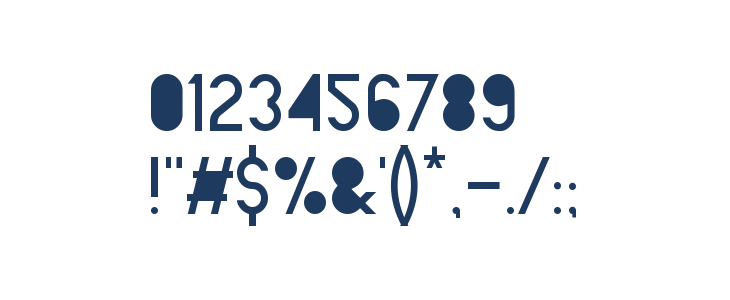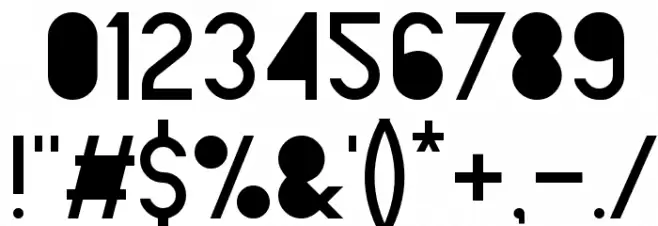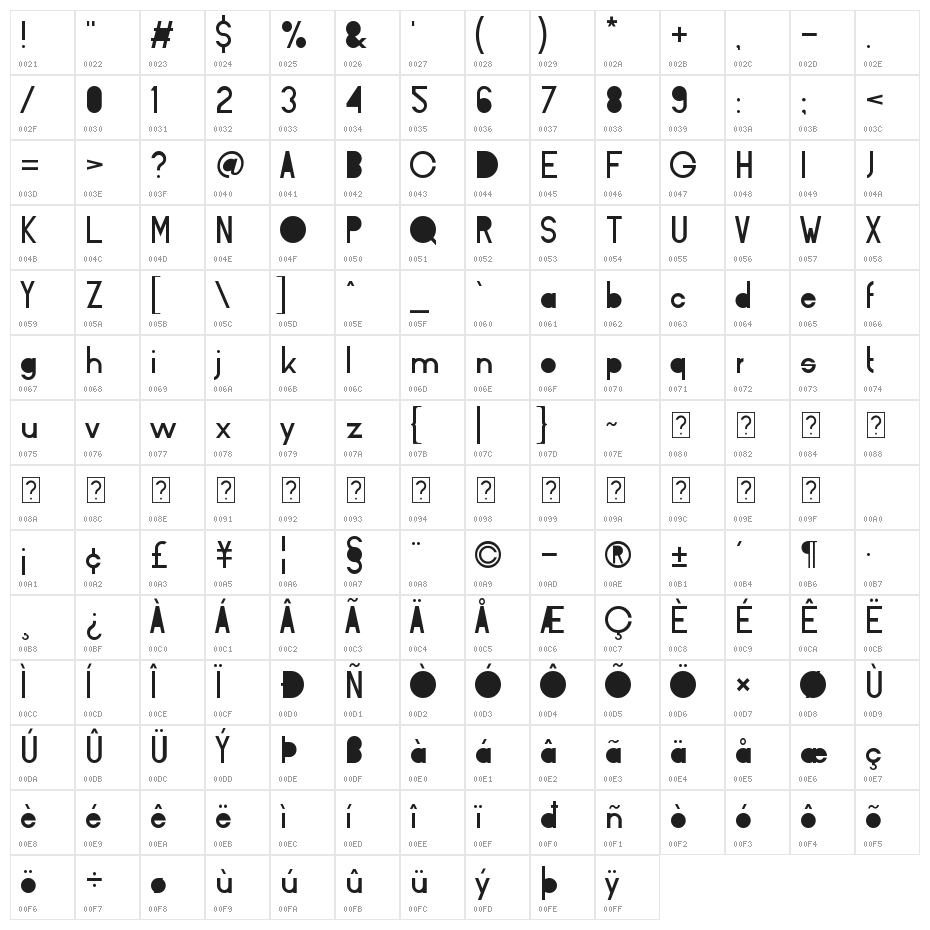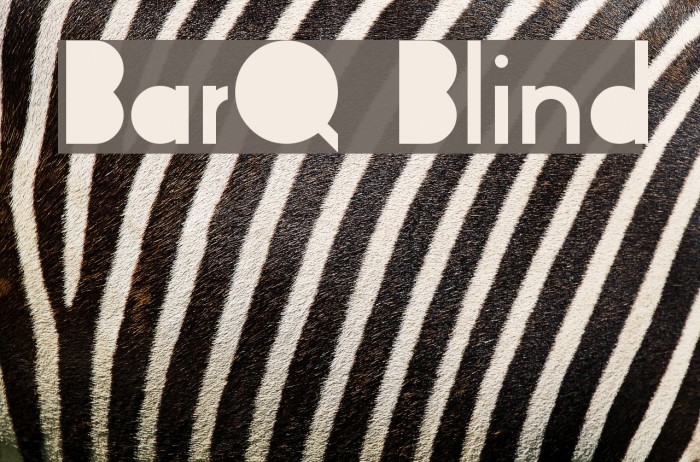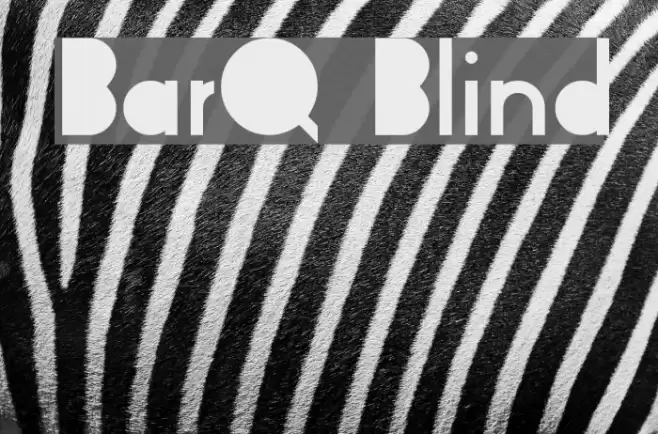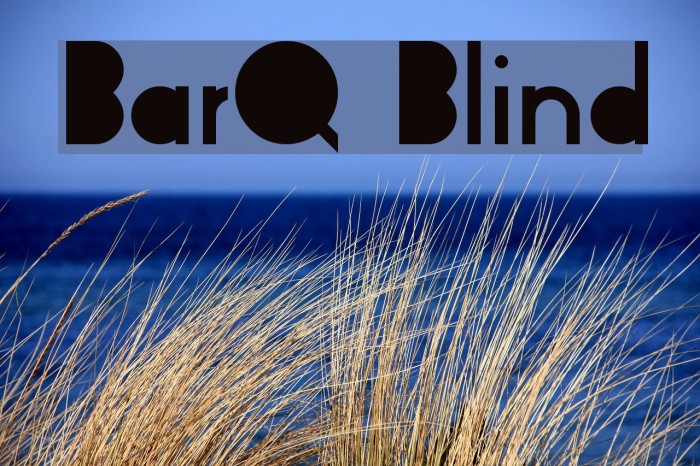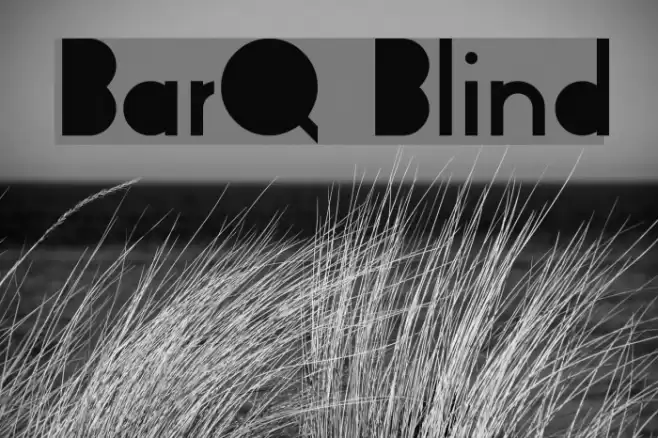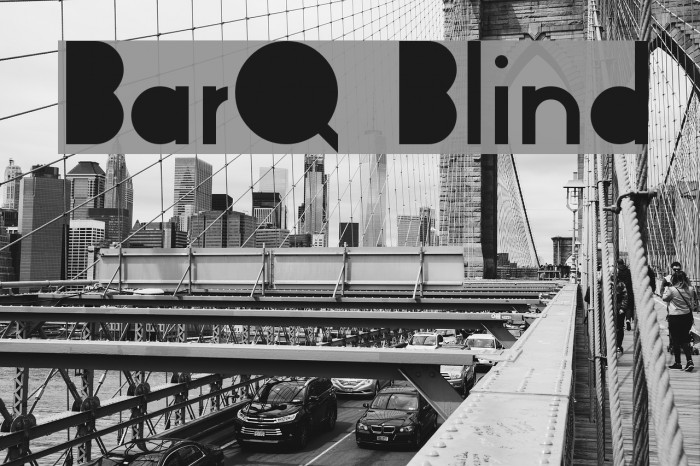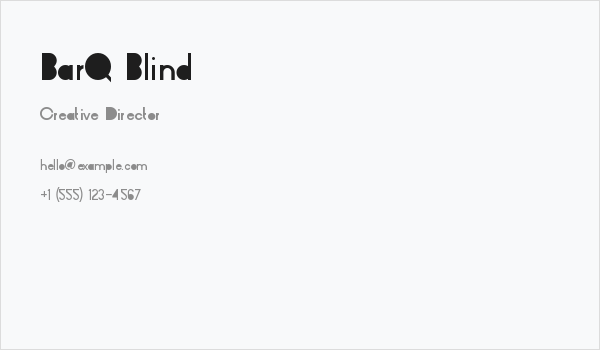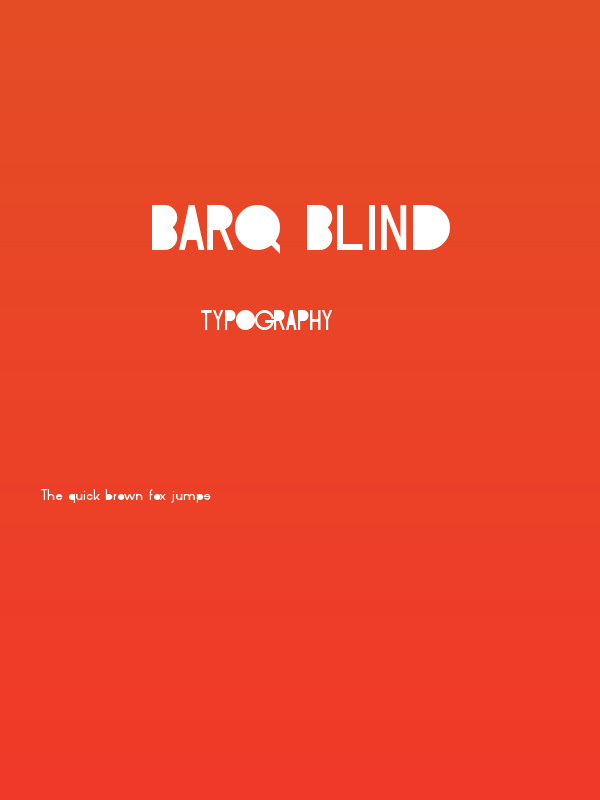
BarQ Blind Font
BarQ Blind Description
This font features a bold, geometric sans-serif style with a modern and clean appearance. The characters are constructed with a strong emphasis on circular and angular shapes, creating a striking visual impact. The uppercase letters are particularly bold and commanding, while the lowercase letters maintain a consistent geometric form. The numerals are distinct and easy to read, with a uniform weight that matches the letters. Special characters are designed with the same geometric precision, ensuring consistency across the entire typeface. The overall design is both functional and aesthetically pleasing, making it suitable for a variety of design applications.